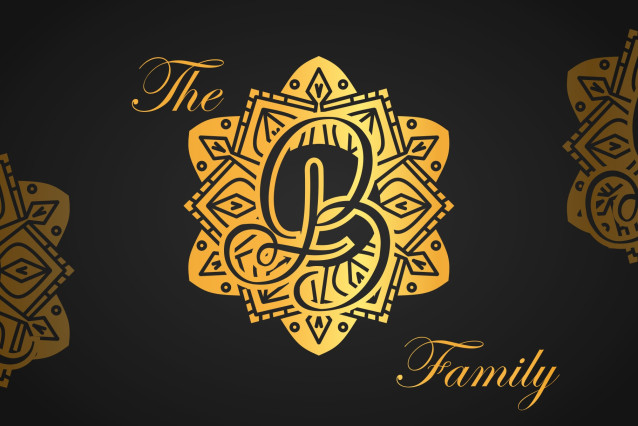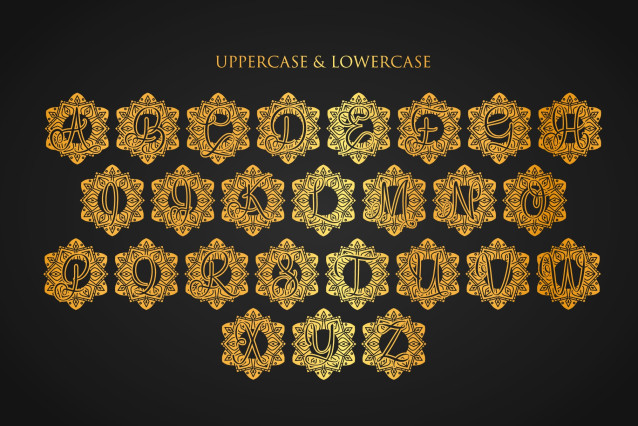
Joyful Mandala Monogram Font
Joyful Mandala Monogram is a delightfully cheerful font that blends hand-drawn mandala artistry with uplifting charm. Designed to infuse your designs with warmth and positivity, this font is perfect for festive stationery, personalized gifts, kids’ party materials, inspirational quotes, and joyful branding. Each letter is adorned with intricate mandala detailing that captures a spirit of happiness and celebration.